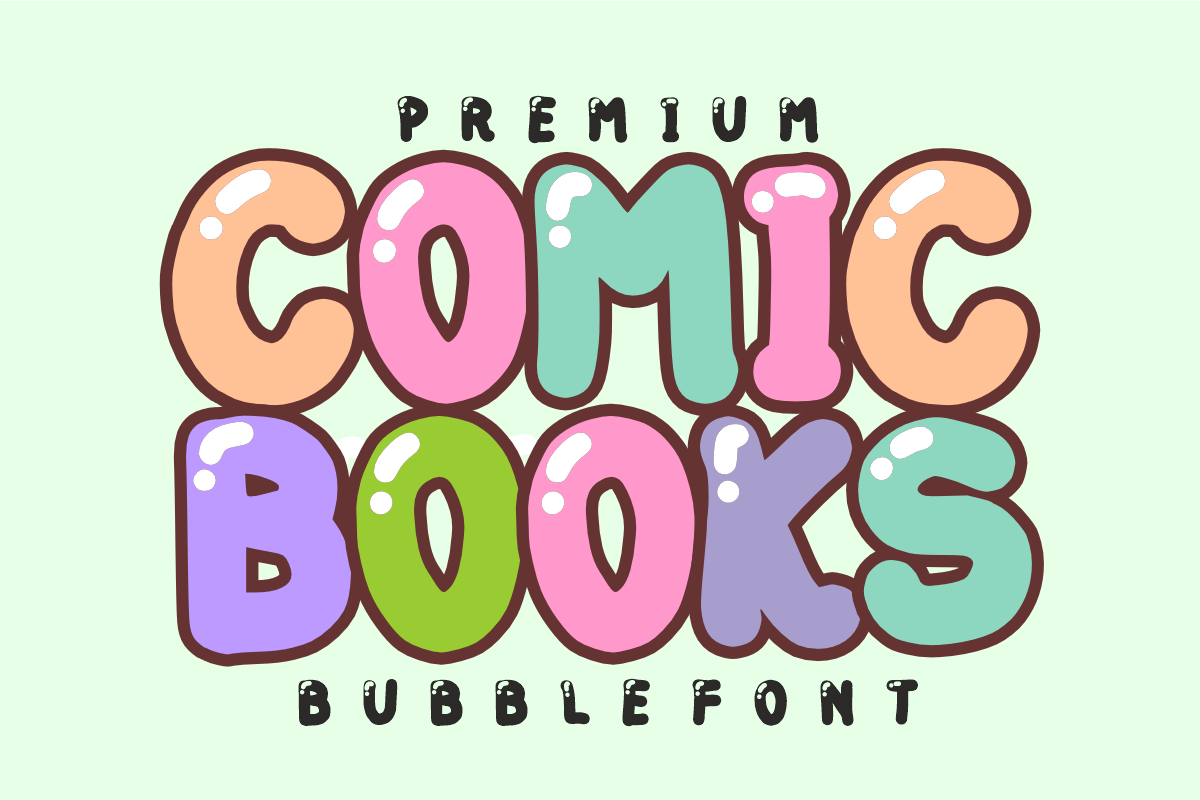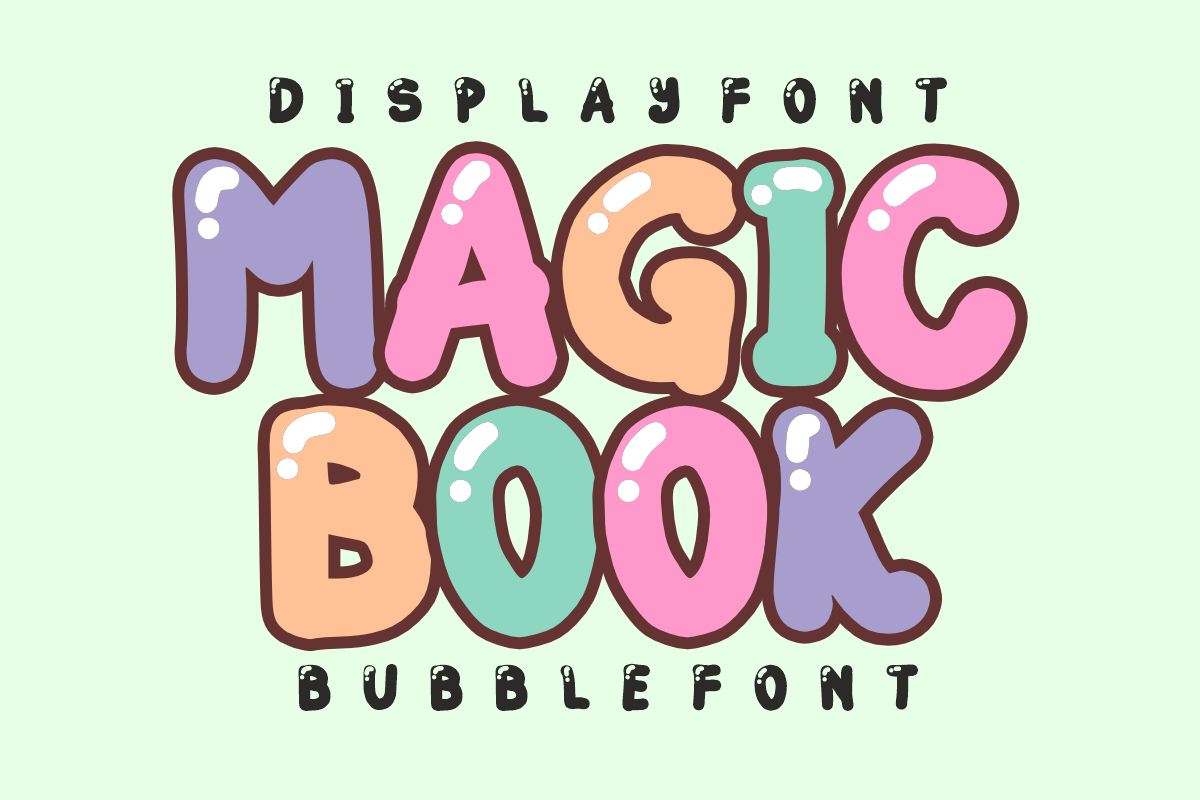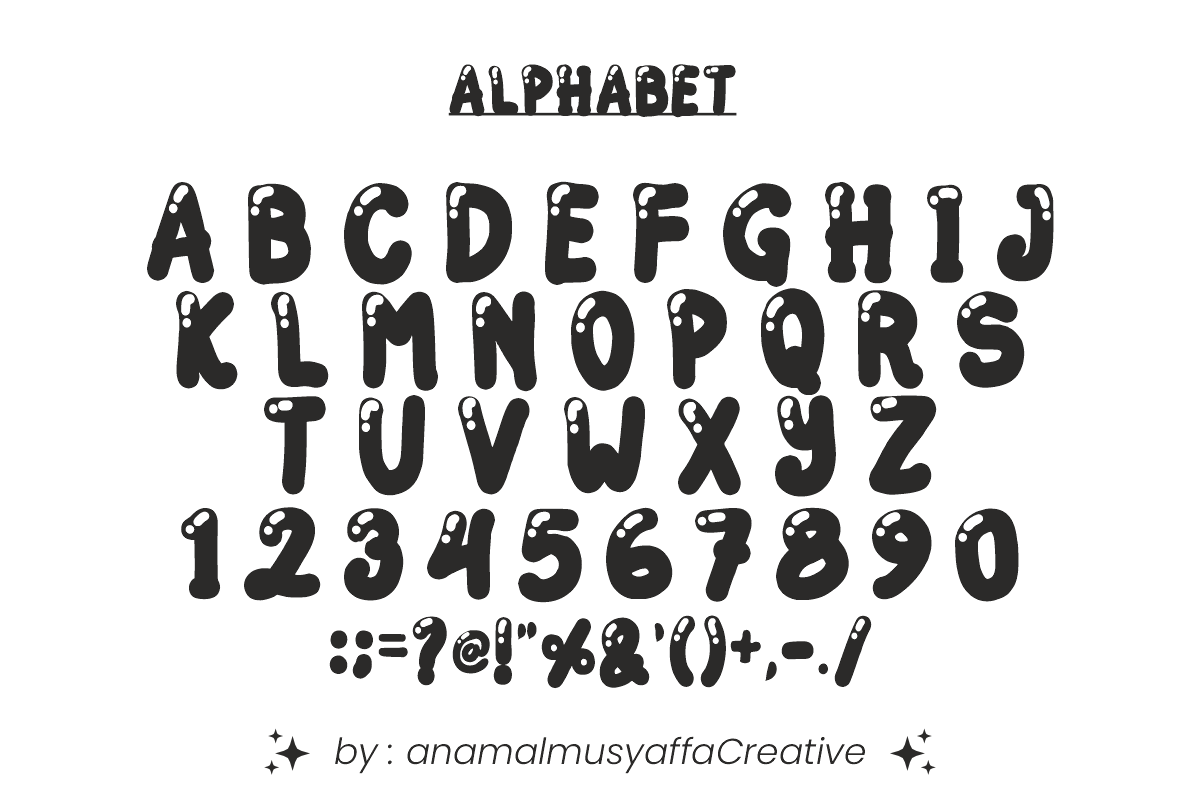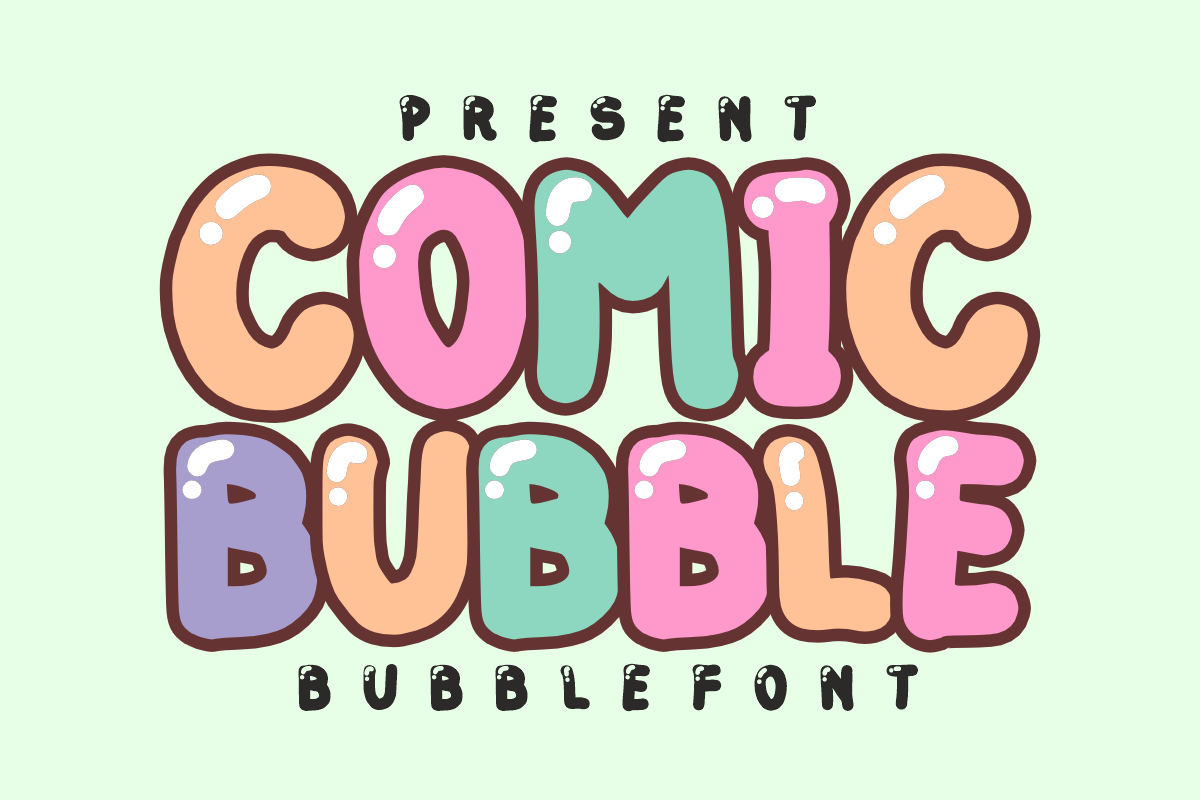
Comic Bubble - Shiny Bubble Font
Comic Bubble - Playful Shiny Bubble Font
Add an explosion of fun and high-energy charm to your layouts with Comic Bubble! Engineered as the ultimate "Bubble Font," this ultra-chunky display typeface features juicy, balloon-like letterforms complete with built-in glossy highlights that give your text an instant, eye-catching 3D pop.
Perfect for high-impact comic book headers, playful sticker designs, and vibrant youth branding, Comic Bubble masterfully pairs a lighthearted cartoon aesthetic with crisp legibility. It is bold, incredibly expressive, and fully optimized for flawless performance across premium digital cutting tools and print workflows.
All-Caps Character Set (Chunky, shiny balloon uppercase letters)
Numbers & Basic Punctuation (Essential, simple symbols included)
Custom Die-Cut Stickers, Decals, & Fun Badges 🏷️
Comic Books, Graphic Novels, & Storybook Headlines 📚
Cricut, Silhouette, & DIY Craft Sublimation Projects ✂️
Children’s Branding, Toy Packaging, & Birthday Party Decor 🎨
Social Media Graphics & High-Impact YouTube Thumbnails 📱